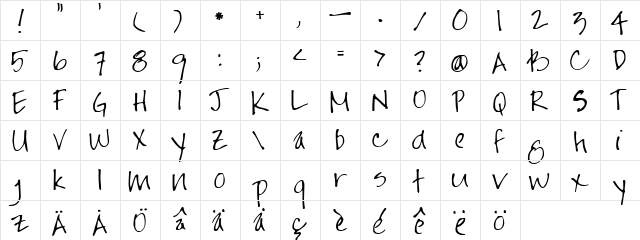
FG Jayne Print Regular
| Foundry | Jane fonted by Font Garden |
| Designer | Ellinor Rapp |
Design Context for FG Jayne Print Typeface
FG Jayne Print takes a measured approach to typography — its balanced proportions and neutral character make it a reliable workhorse for both digital and print work.